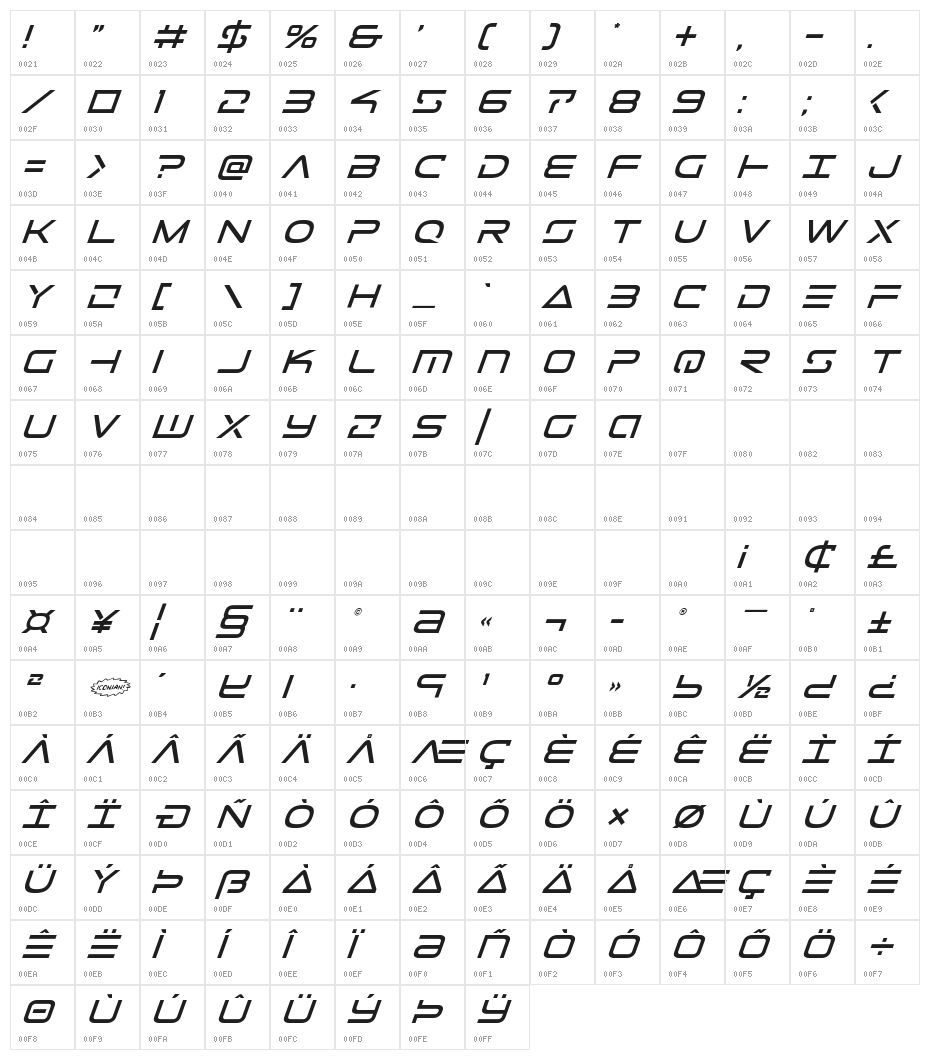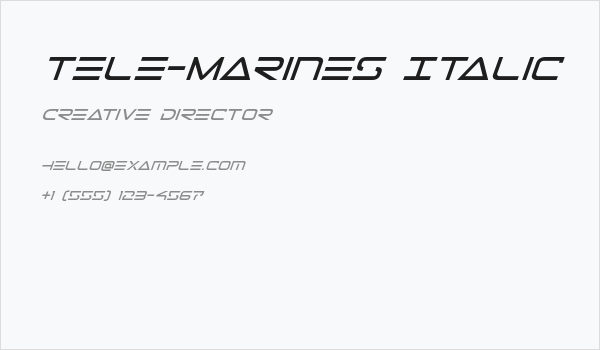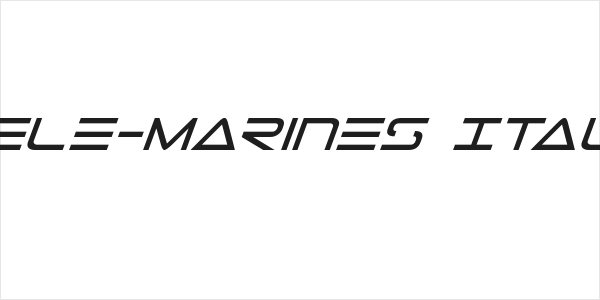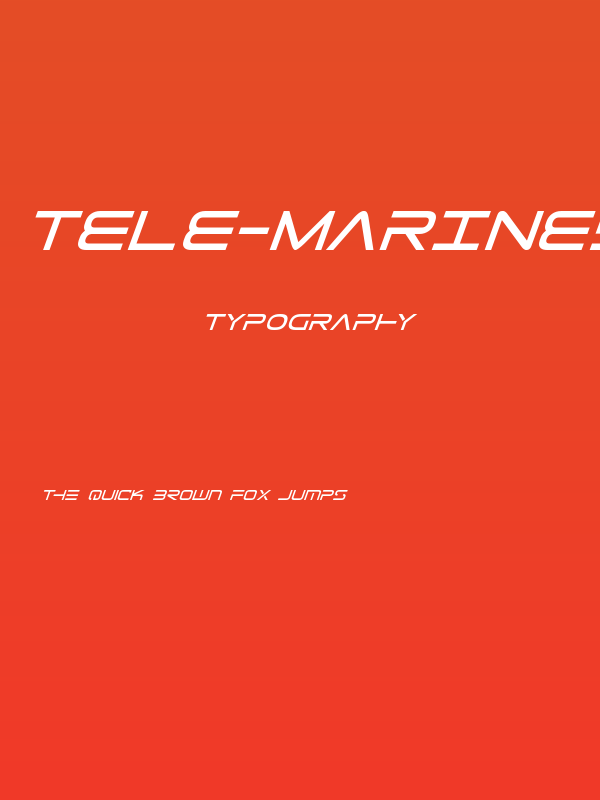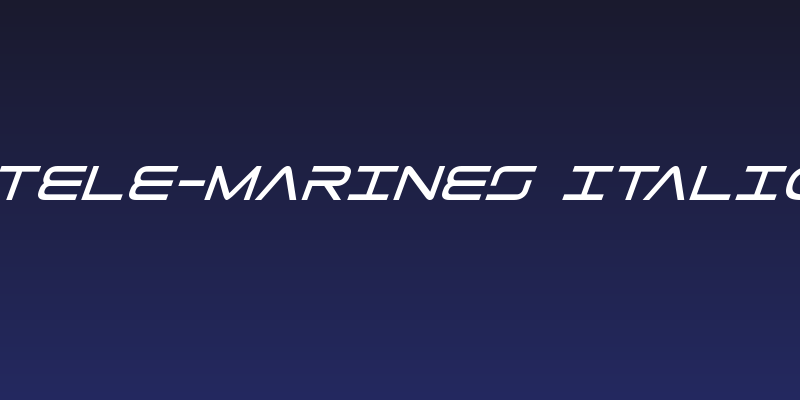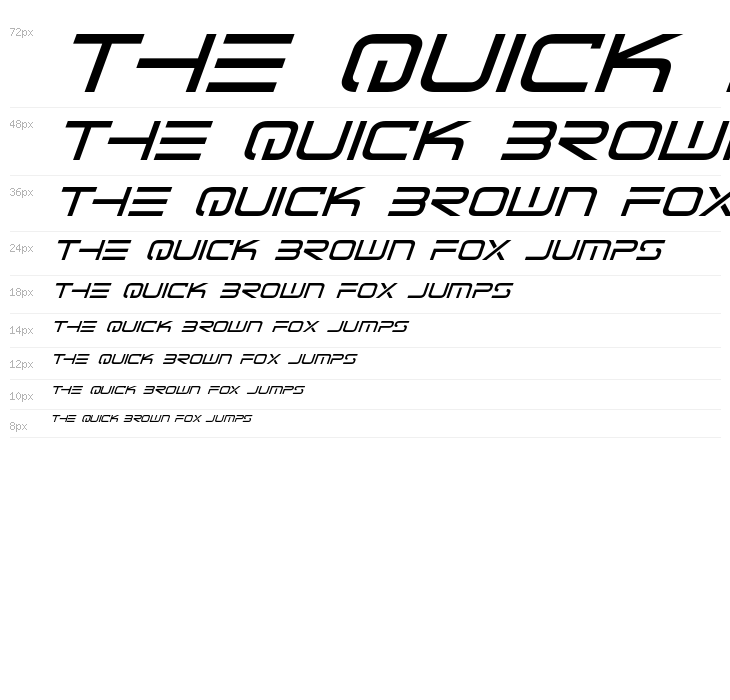
Tele-Marines Italic Font
Tele-Marines Italic Description
This font features a sleek, futuristic design with italicized characters that convey a sense of motion and speed. The letters are angular and geometric, with sharp edges and a consistent slant that adds a dynamic quality. The uppercase and lowercase letters maintain a uniform style, while the numerals and special characters complement the overall aesthetic. The font's modern appearance makes it suitable for technology-related projects or any design that requires a contemporary and energetic feel.